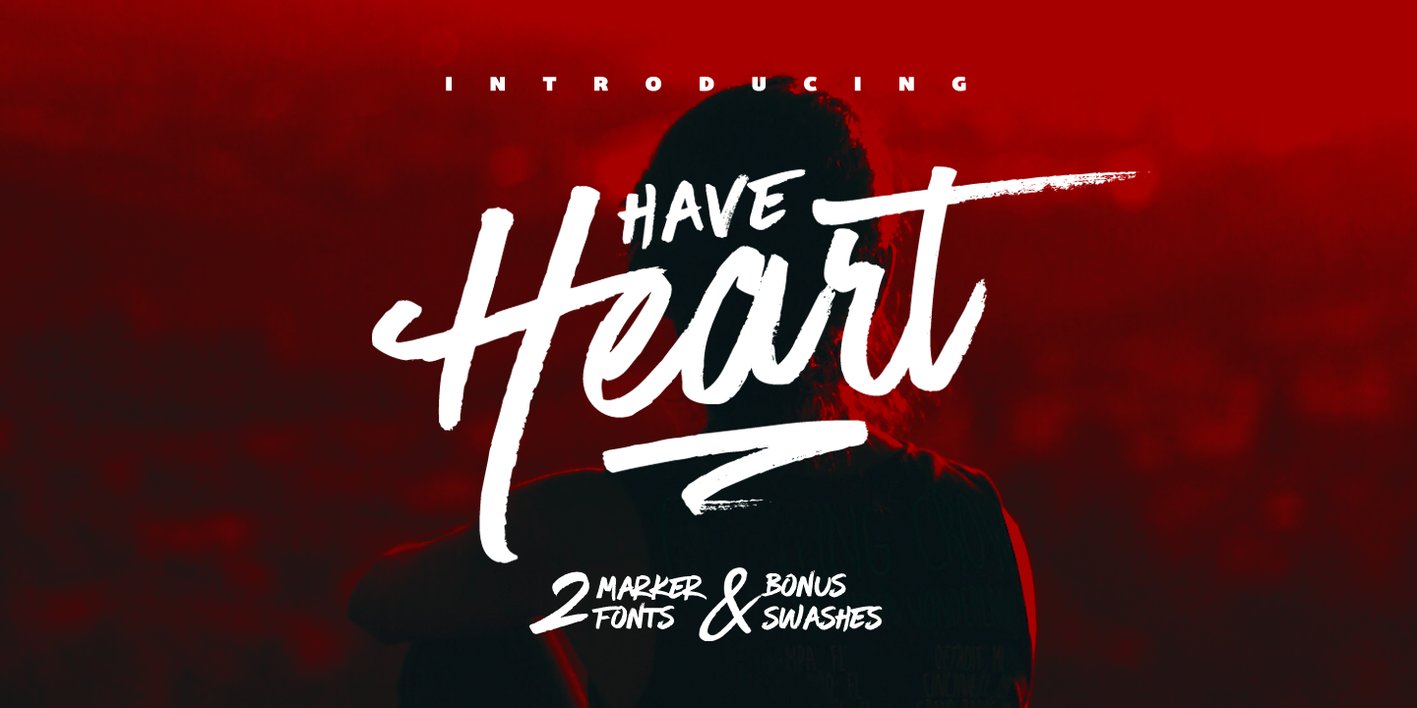
Have Heart Font is perfect for romantic wedding invitations, heartfelt greeting cards, love-themed branding, Valentine's Day materials, compassionate nonprofit organizations, caring healthcare communications, emotional counseling services, loving family businesses, heartwarming social campaigns, and intimate personal stationery.
Have Heart Font is exciting because it perfectly captures the essence of genuine love and heartfelt emotion, creating a typeface that embodies compassion, warmth, and the universal language of the human heart. This font brings emotional depth and loving sophistication to any project, making it ideal for brands and organizations that want to convey care, empathy, and the transformative power of love and human connection. Its tender character and heartfelt appeal create an atmosphere of emotional authenticity that resonates deeply with audiences seeking genuine human connection.
Have Heart Font family includes light, regular, medium, and bold weights, each available in roman and italic styles with heart-inspired ornaments and loving decorative elements, providing designers with comprehensive tools for creating heartfelt typography and emotionally connecting brand experiences.
This beautiful emotional typeface combines romantic design principles with contemporary functionality, making Have Heart Font Free Download a perfect choice for projects celebrating love, compassion, and human connection. The font's lovingly crafted letterforms feature warm proportions and heart-inspired styling that reflect the gentle strength of love and the caring nature of human relationships.
Whether you're designing romantic event materials, compassionate organization branding, or heartfelt personal communications, Have Heart Font delivers unmatched emotional authenticity and loving appeal. The font excels in both intimate personal applications and larger community environments where love and compassion create meaningful connections and positive change.
Relationship professionals choose Have Heart Font for its ability to instantly communicate love and compassion while creating deep emotional connections with audiences seeking authentic caring experiences. The font's heartfelt character makes it particularly effective for wedding planners, counseling services, and charitable organizations.
Each character reflects the tender beauty of human love, featuring gentle curves and caring proportions that create typography as warm and comforting as a loving embrace or heartfelt expression of care.